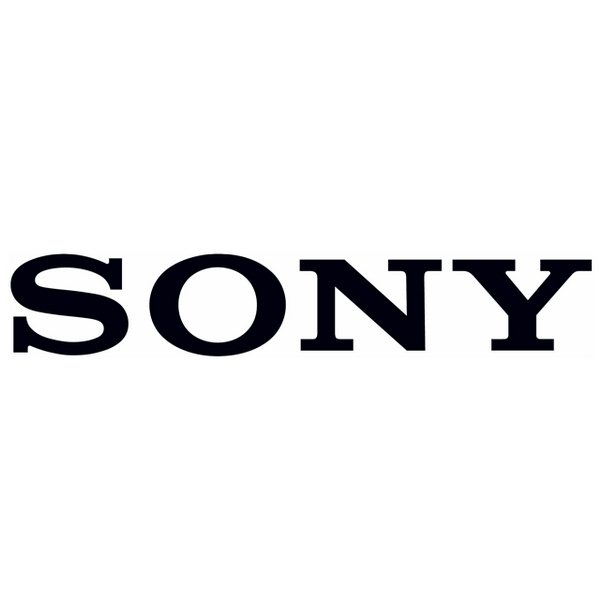
Sony Font
ElectronicsSony is a leading multinational corporation that specializes in electronics and entertainment. It is known for producing high-quality products such as TVs, gaming consoles, cameras, and headphones.
Sony's first logo was introduced in 1957 and has been updated several times, with the current logo in use since 1973. The current logo consists of the Sony name written in a slab serif font, similar to Clarendon, created by Robert Besley. This font is commercially available for purchase here.